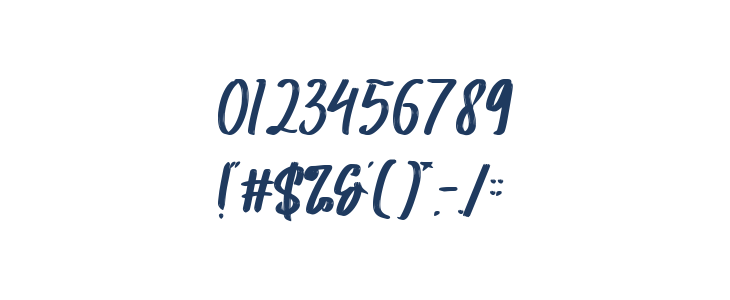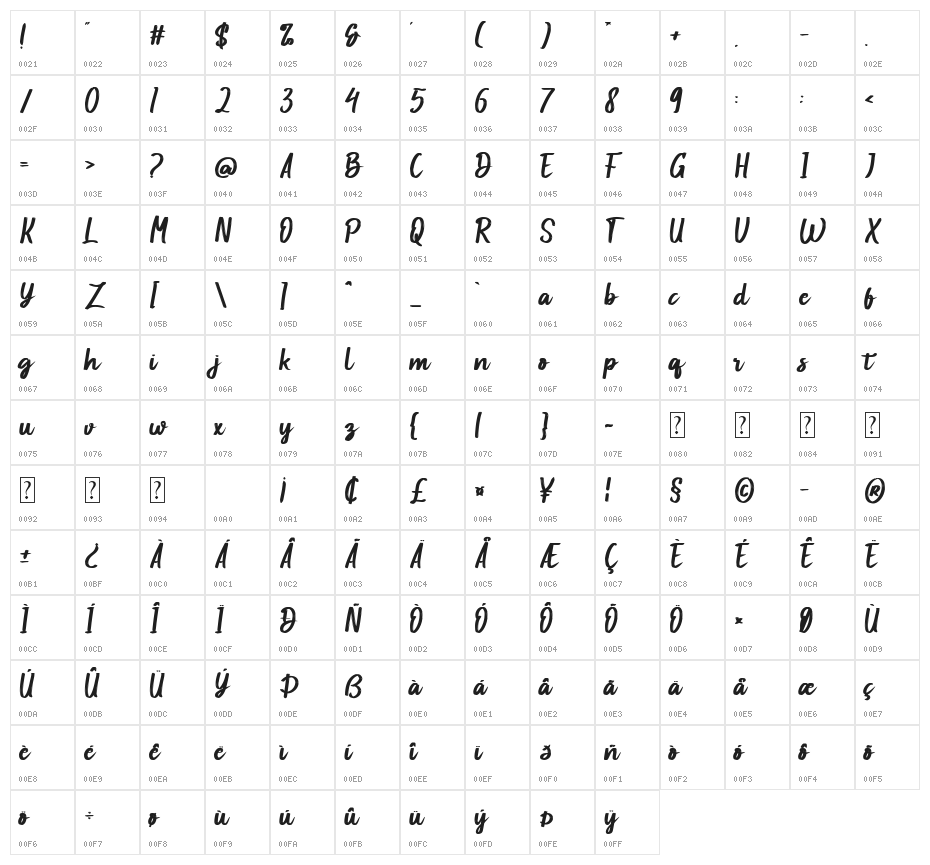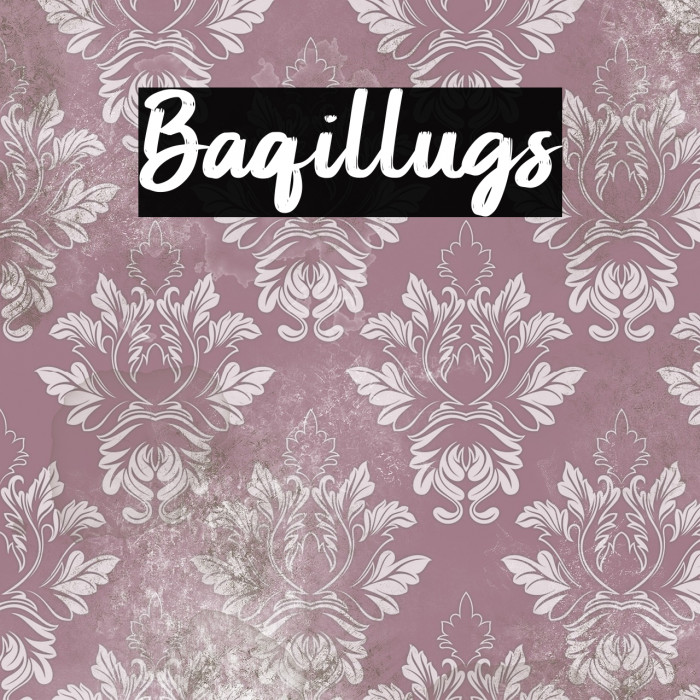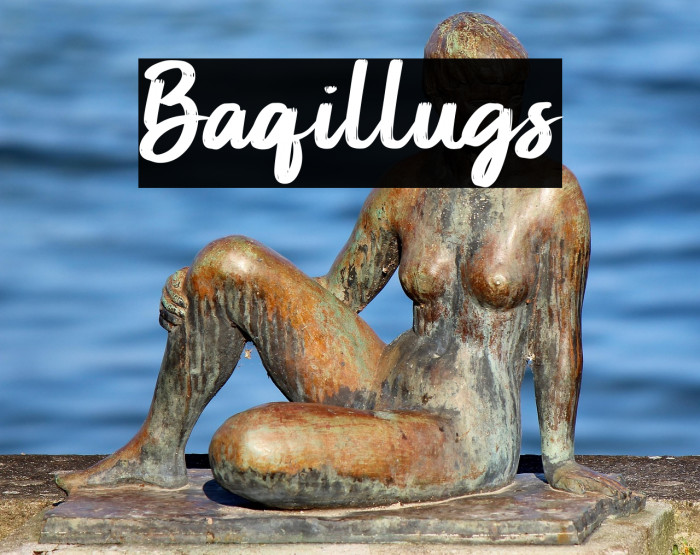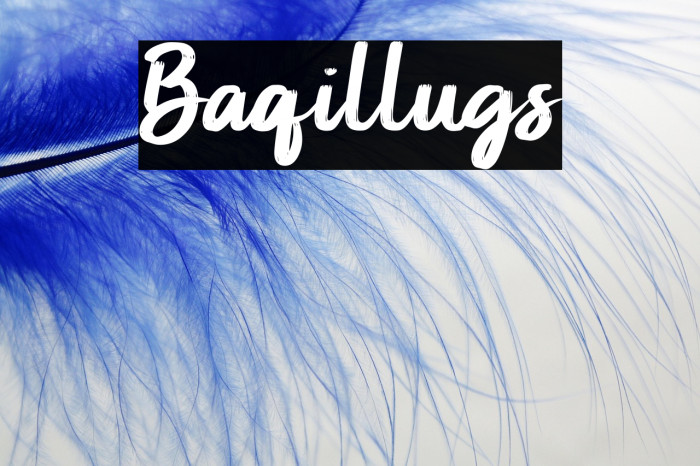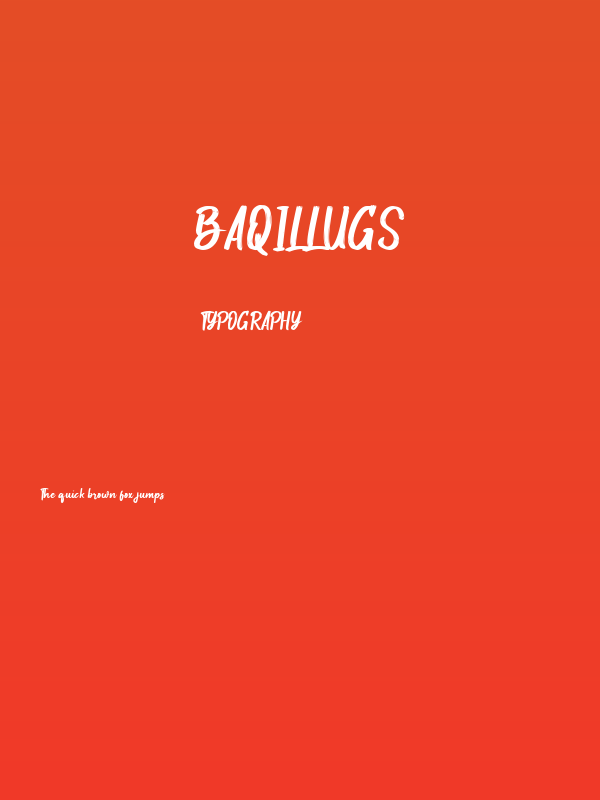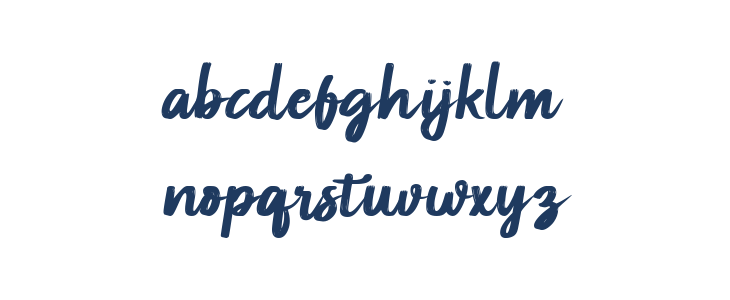
Baqillugs Font
Baqillugs Description
This font features a bold and expressive script style, characterized by its dynamic brush strokes and fluid motion. The uppercase letters exhibit a sense of movement and energy, with varying stroke widths that add a lively rhythm to the text. The lowercase letters maintain a cohesive flow, complementing the uppercase with their rounded forms and smooth connections. Numbers and special characters follow the same energetic style, making them stand out with their artistic flair. The overall appearance is both modern and artistic, suitable for creative projects that require a touch of personality and vibrancy.
| Overall Style | Modern, Artistic |
| Proposed Projects | Ideal for branding, packaging, invitations, and social media graphics where a lively and artistic touch is desired. |